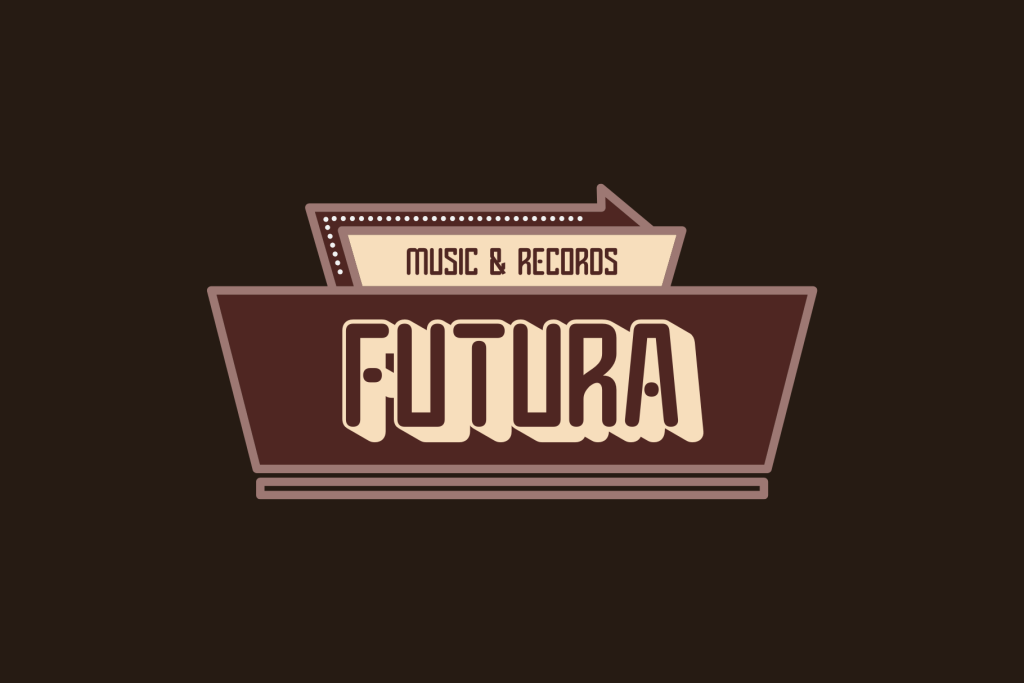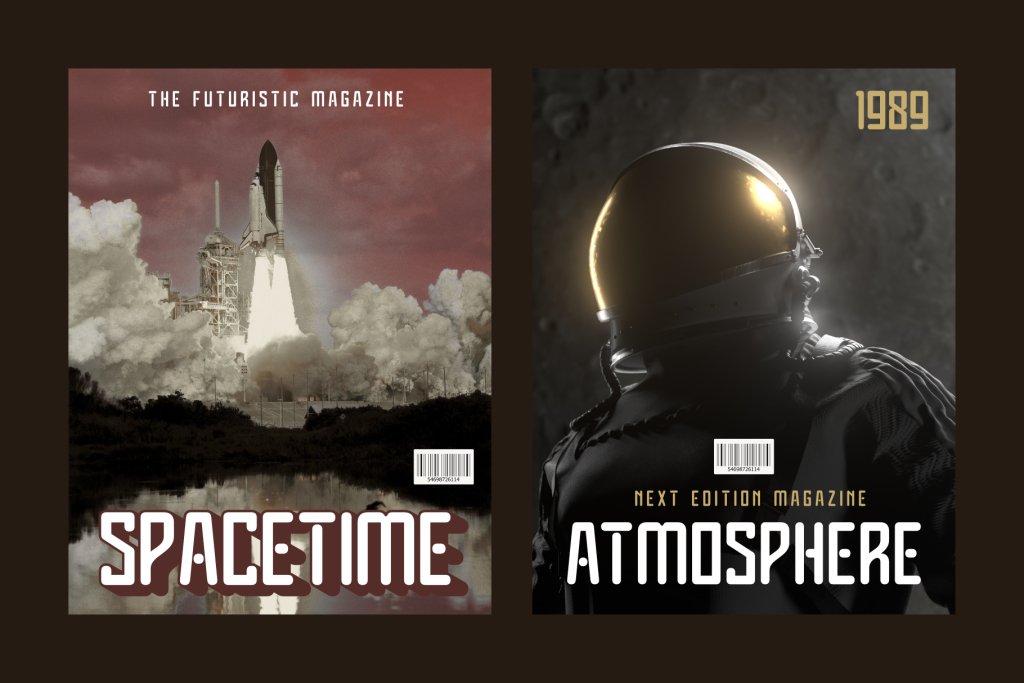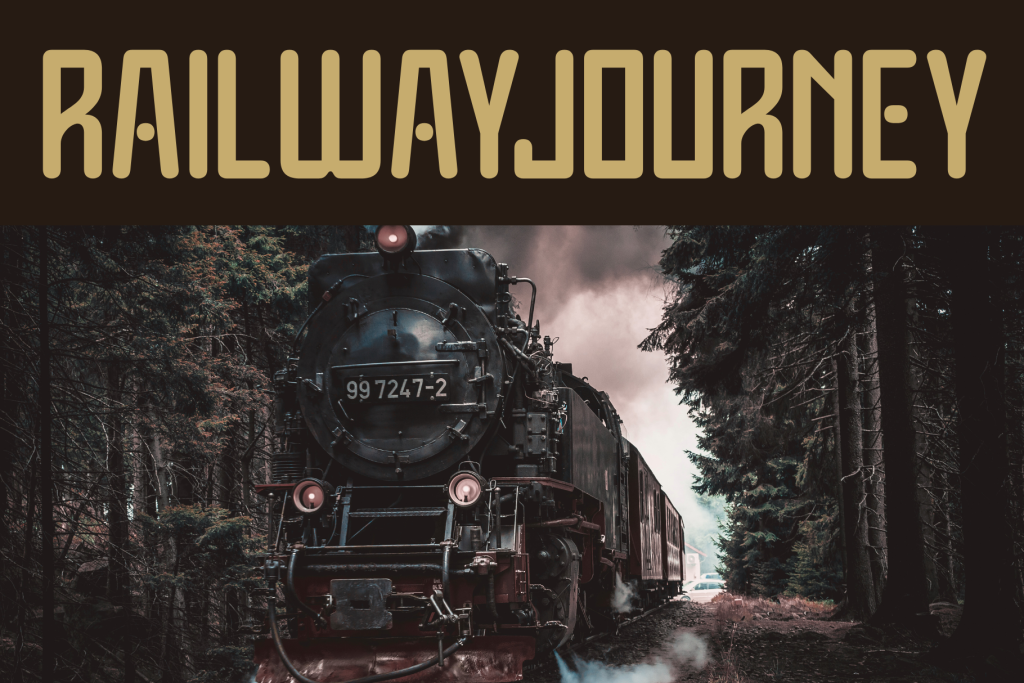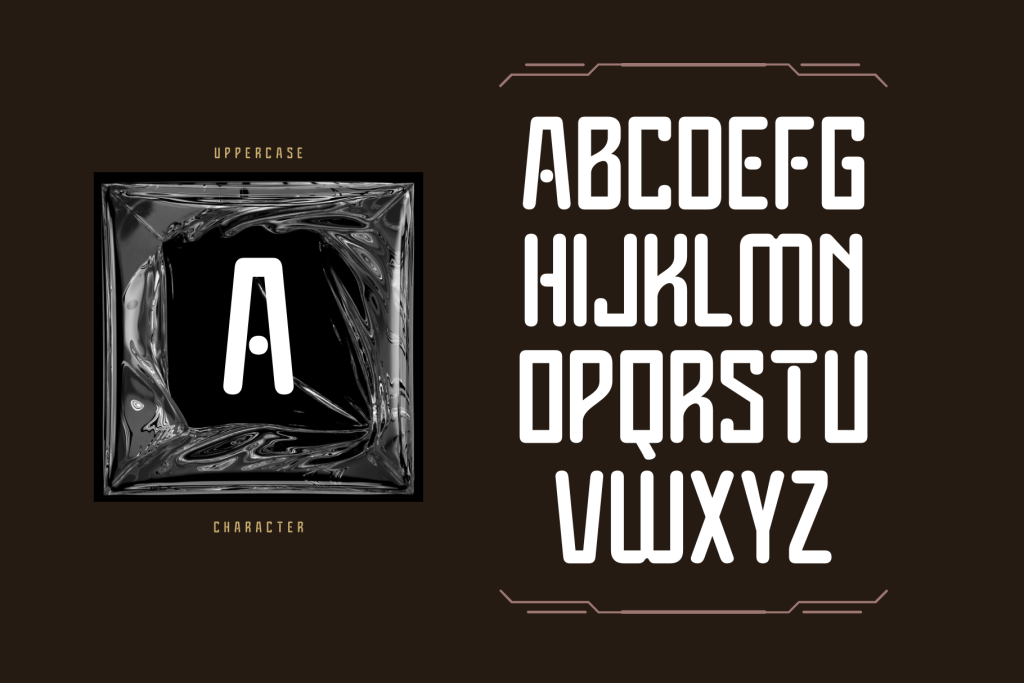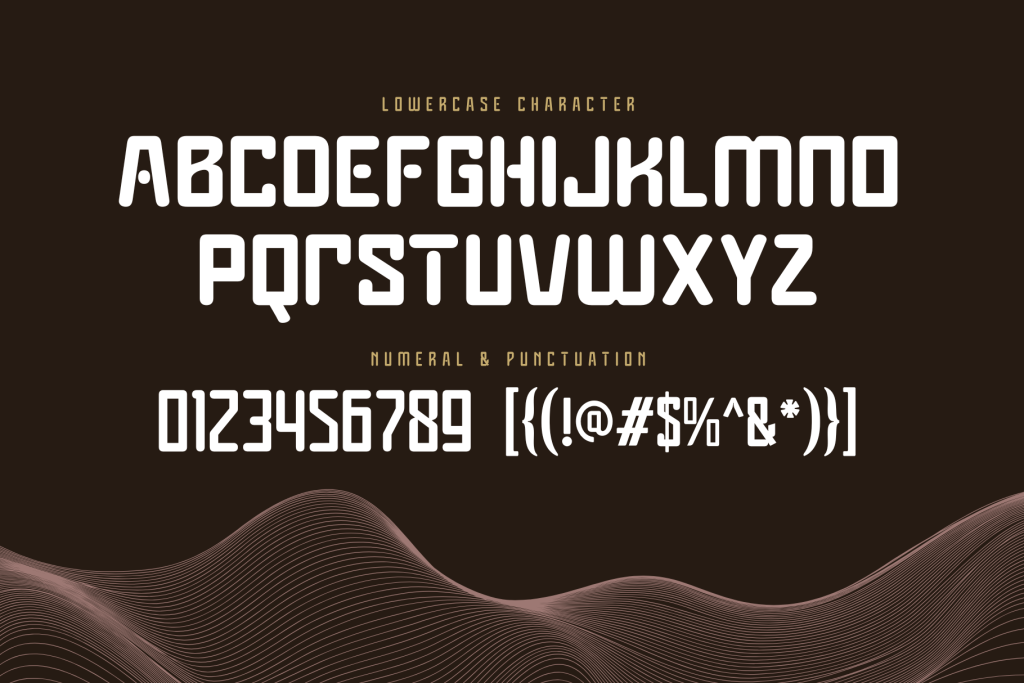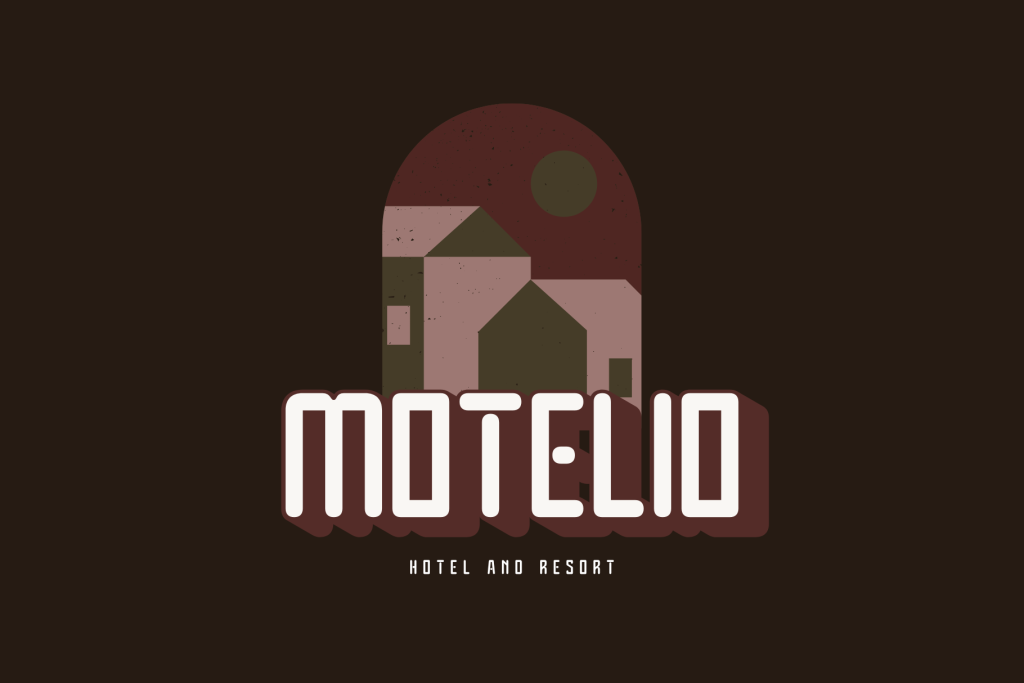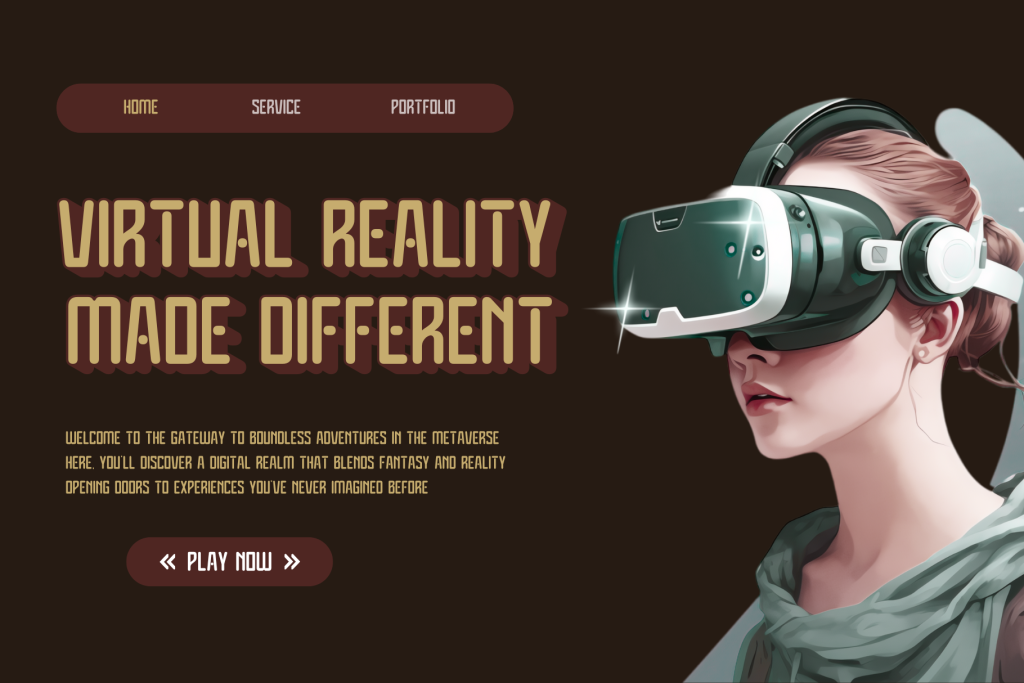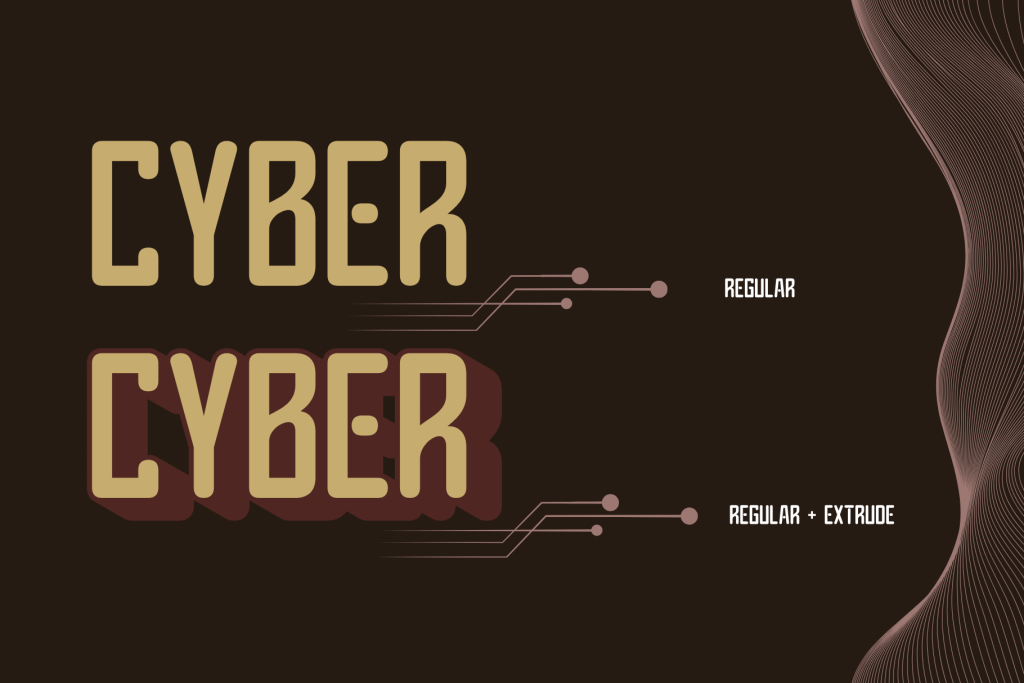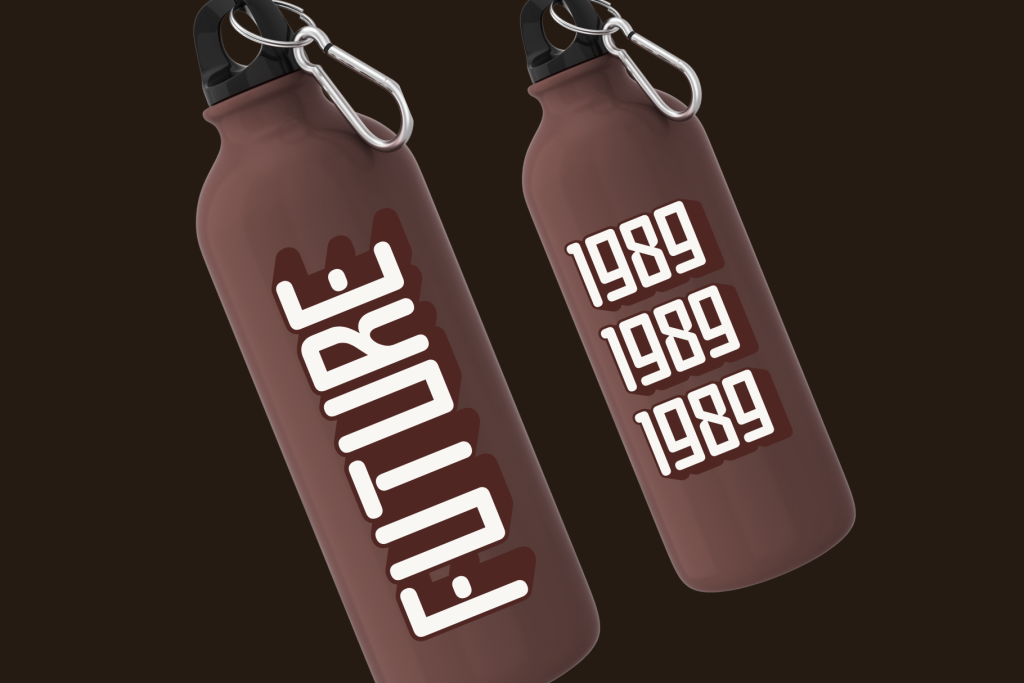
Cyber Techno – Modern Logo Font
Cyber Techno offers beautiful typographic harmony for a diversity of design projects, including logos & branding, social media posts, advertisements & product designs.
• Regular & Extrude Font
• Techno style with Uppercase Character
Cyber Techno is a bold techno-style font with a futuristic extrude design, perfect for creating standout visuals. Inspired by modern, sci-fi, and space aesthetics, Cyber brings a sleek and high-tech vibe to any project. Ideal for logos, posters, movie titles, and digital designs, this font adds depth and energy to your message. Its sharp lines and dimensional form make it a top choice for bold, cutting-edge branding and visuals.